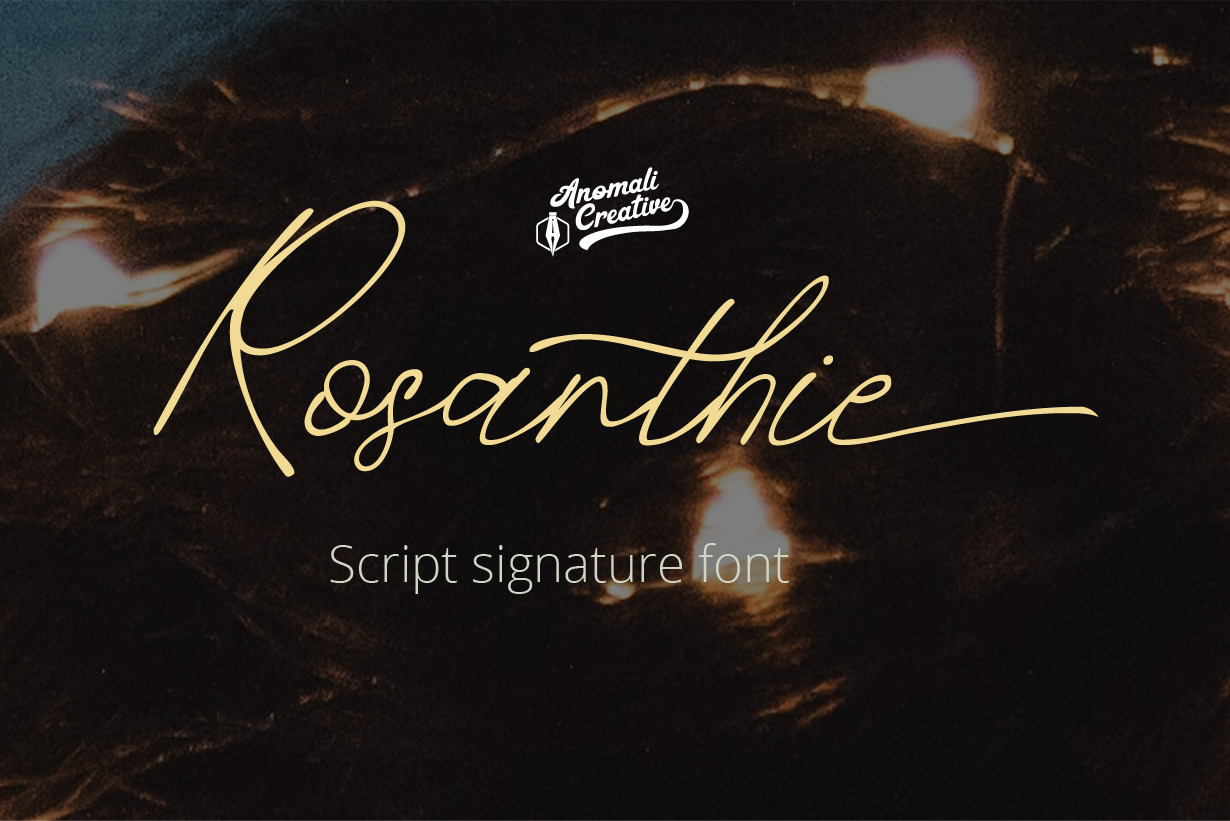
Rosanthie Signature Script Font
LUXURY SIGNATURE SCRIPT FONT
As a graphic designer, who worked/works a lot on creating branding, we often are requested to design a logo in SIGNATURE STYLE, but with the vibe of real hand lettering. So, this font is an answer for this idea.
Introducing Rosanthie - SIGNATURE SCRIPT FONT Font by Anomali Creatype! Contle is SIGNATURE SCRIPT FONT is handmade SIGNATURE STYLE FONT with stunning characters. Ideal for logos, name tag, handwritten quotes, product packaging, merchandise, social media & greeting cards. It contains a full set of lower & uppercase letters, a large range of punctuation, numerals, and multilingual support.
Also, to keep maximum real SIGNATURE SCRIPT effect, there were created many ligatures (you can see them among presentation pictures). There are also an alternate style for each glyphs on this SIGNATURE SCRIPT FONT